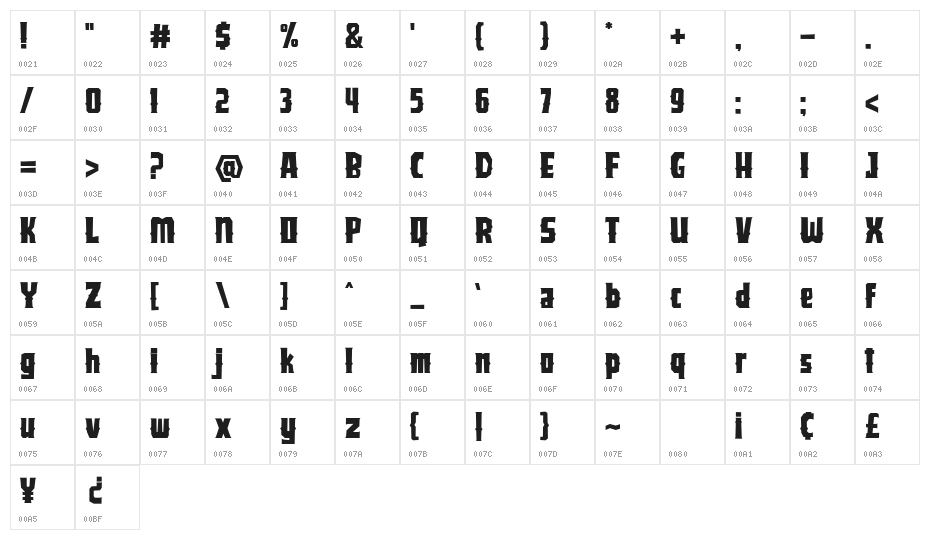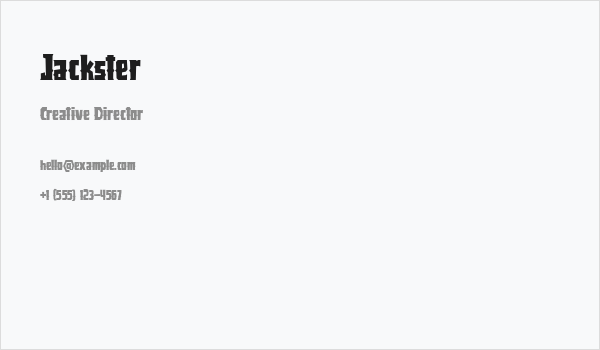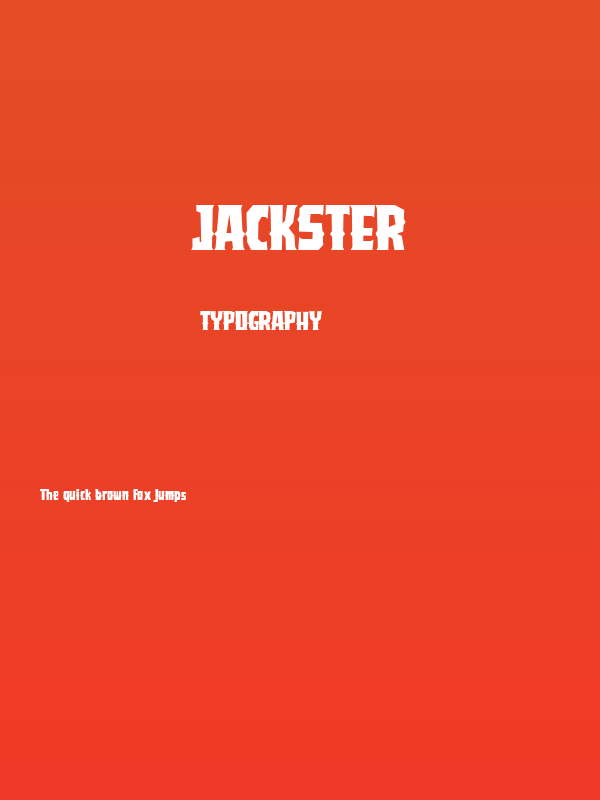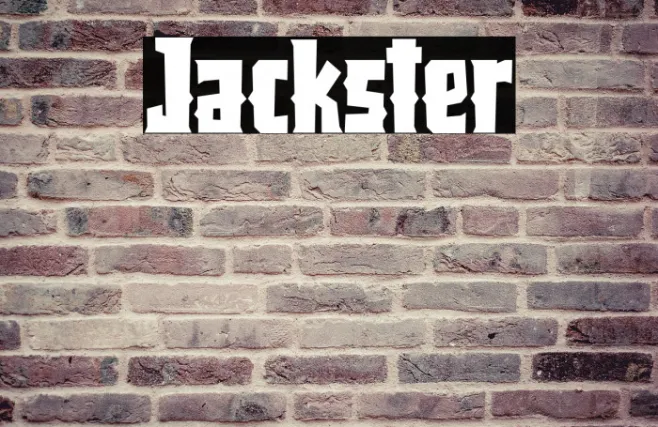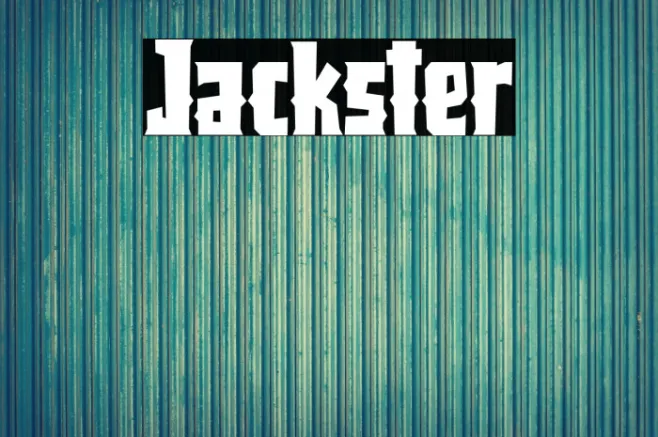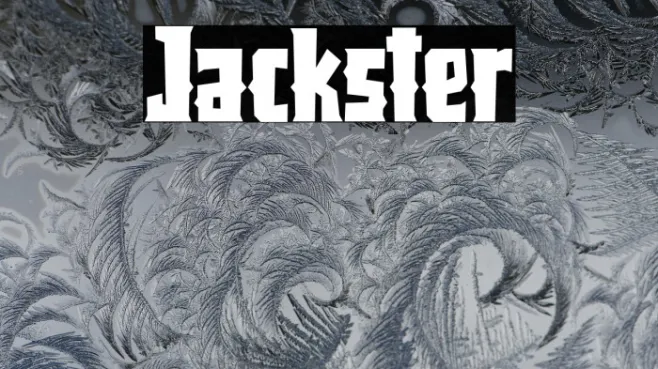
Jackster Font
Jackster Description
This font features a bold and striking design with a distinctly angular and geometric style. The characters are heavily stylized, with sharp edges and a blocky appearance that gives it a strong presence. The uppercase and lowercase letters maintain a consistent weight, contributing to a cohesive look. The numerals and special characters follow the same design principles, ensuring uniformity across all glyphs. This font's unique aesthetic makes it ideal for projects that require a bold statement or a modern, edgy feel.
| Proposed Projects | Ideal for posters, album covers, branding, and any design needing a bold, modern touch. |